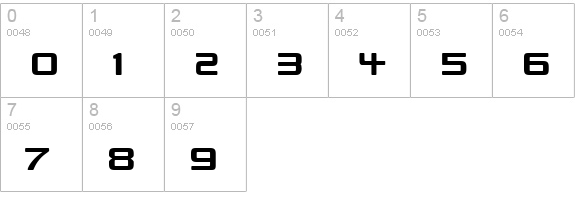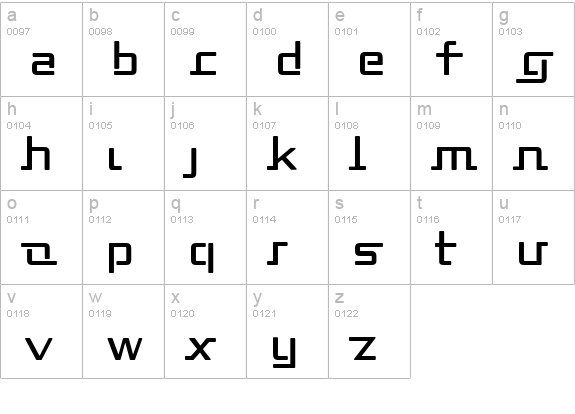
Republika II Font Details
Republika II font is a beautiful and versatile typeface that combines elegance with a touch of modernity. With its clean lines and balanced proportions, this font is perfect for a wide range of design projects, whether it be branding, advertising, or editorial work. What sets Republika II font apart is not only its aesthetic appeal but also the fact that it is completely free to use. Yes, you read that right - this high-quality font is freely available to download at FontsMarket.com. No need to worry about breaking the bank or navigating through complicated licensing agreements. Republika II font allows designers and creatives to unleash their full potential without any financial constraints. This font offers a wide range of weights and styles, from thin and delicate to bold and impactful, making it suitable for various design purposes. Whether you are looking to create a sophisticated logo, a sleek website, or eye-catching headlines, Republika II font has got you covered. The versatility of Republika II font extends to its extensive character set, which includes both uppercase and lowercase letters, numerals, punctuation marks, and multilingual support. This ensures that you can effortlessly communicate your message in various languages and cater to a diverse audience. With Republika II font, you can elevate your designs to new heights. Its timeless elegance and modern appeal will leave a lasting impression on viewers, making it a must-have in any designer's toolkit. So why wait? Head over to FontsMarket.com and download this exceptional font for free today. Unleash your creativity and let Republika II font take your designs to the next level.